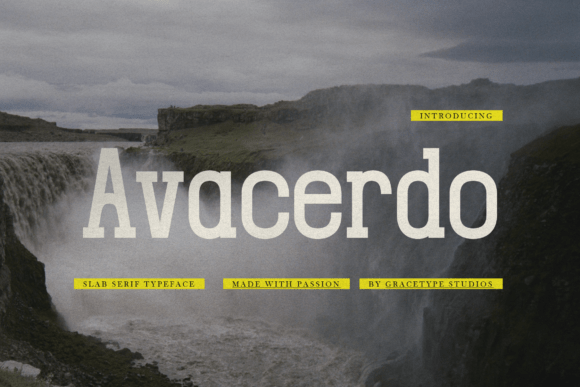
The Power of Avacerdo: Unleashing Monumental Strength in Your Designs
I’ll never forget the design project that led me to discover Avacerdo. I was working on a branding campaign for an outdoor gear company, and I needed a font that could convey a sense of ruggedness, reliability, and grandeur. After hours of scouring font libraries and trying out different typefaces, I stumbled upon Avacerdo – and it was love at first sight! ✨
Avacerdo is a powerful and cinematic slab serif typeface designed to convey a sense of monumental strength and enduring beauty. Its unique blend of industrial precision and organic rhythm makes it perfect for outdoor adventure branding, high-end editorial titles, environmental signage, and monumental logo designs.
Avacerdo in Depth: What I Love and What to Watch Out For
What I Love About Avacerdo
- ✅ High x-height for excellent readability
- ✅ Sturdy vertical stems for a sense of solidity
- ✅ Unique “arched” bridge on the lowercase ‘n’ and ‘r’ for added character
- ✨ Clean and impactful presence that commands attention
While Avacerdo is an exceptional font, there are a few things to keep in mind: ⚠️
- 🤔 Some users may find the font’s strong personality overwhelming for certain design projects
- ⚠️ Limited use of Avacerdo in body text, as its bold presence may not be suitable for lengthy passages
The Story Behind Avacerdo
Avacerdo was designed with the goal of creating a font that could convey a sense of monumental strength and enduring beauty. The designer’s inspiration came from ancient monuments and structures that have stood the test of time. The result is a font that balances industrial precision with a flowing, organic rhythm.
Q: What is Avacerdo best suited for?
A: Avacerdo is best suited for outdoor adventure branding, high-end editorial titles, environmental signage, and monumental logo designs.
Q: Can I use Avacerdo for body text?
A: While Avacerdo is an exceptional font, it may not be the best choice for body text due to its bold presence. However, it can be used for short passages or headings.
Q: Is Avacerdo a versatile font?
A: Yes, Avacerdo is a versatile font that can be used for a wide range of design projects, from branding and advertising to editorial and signage.